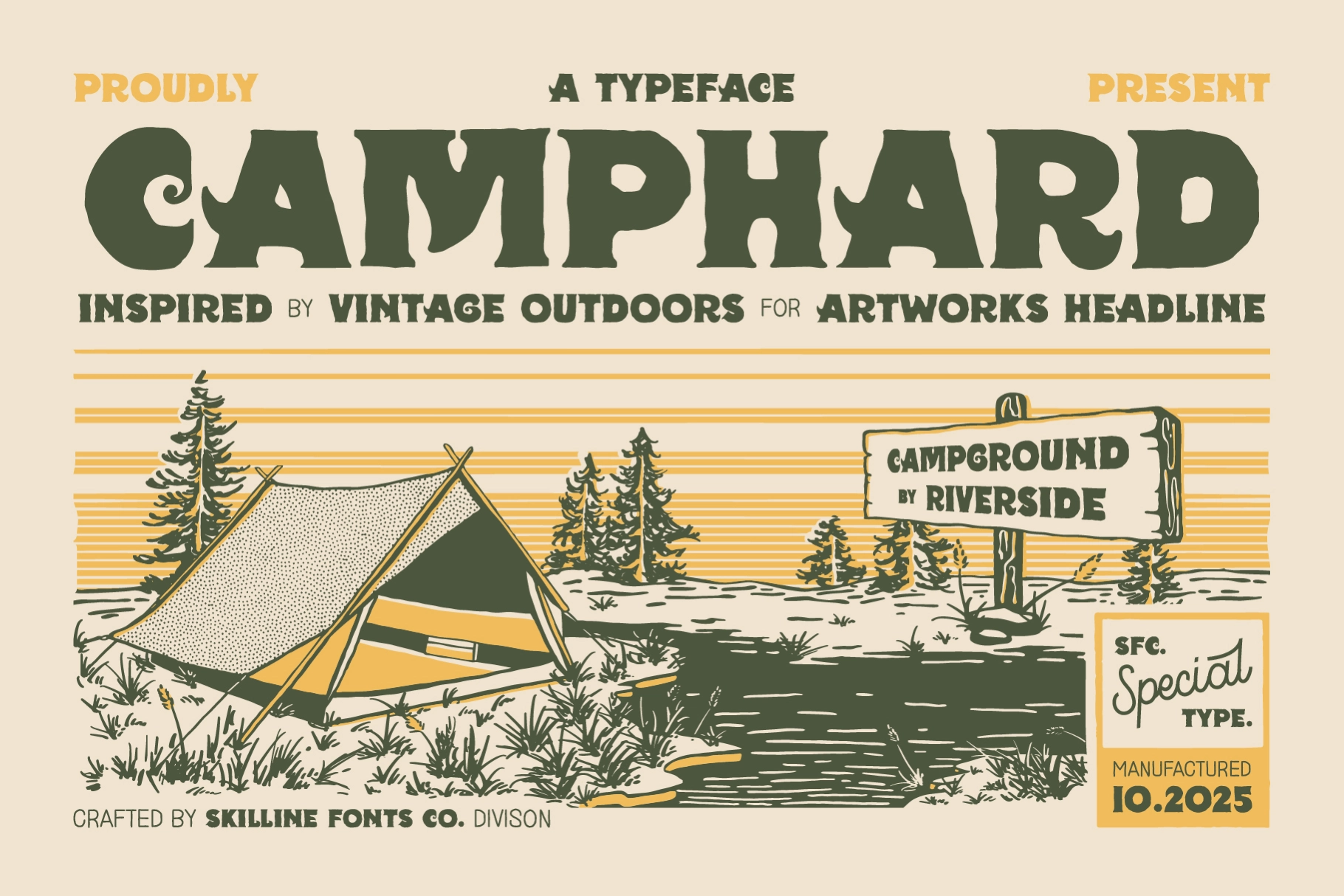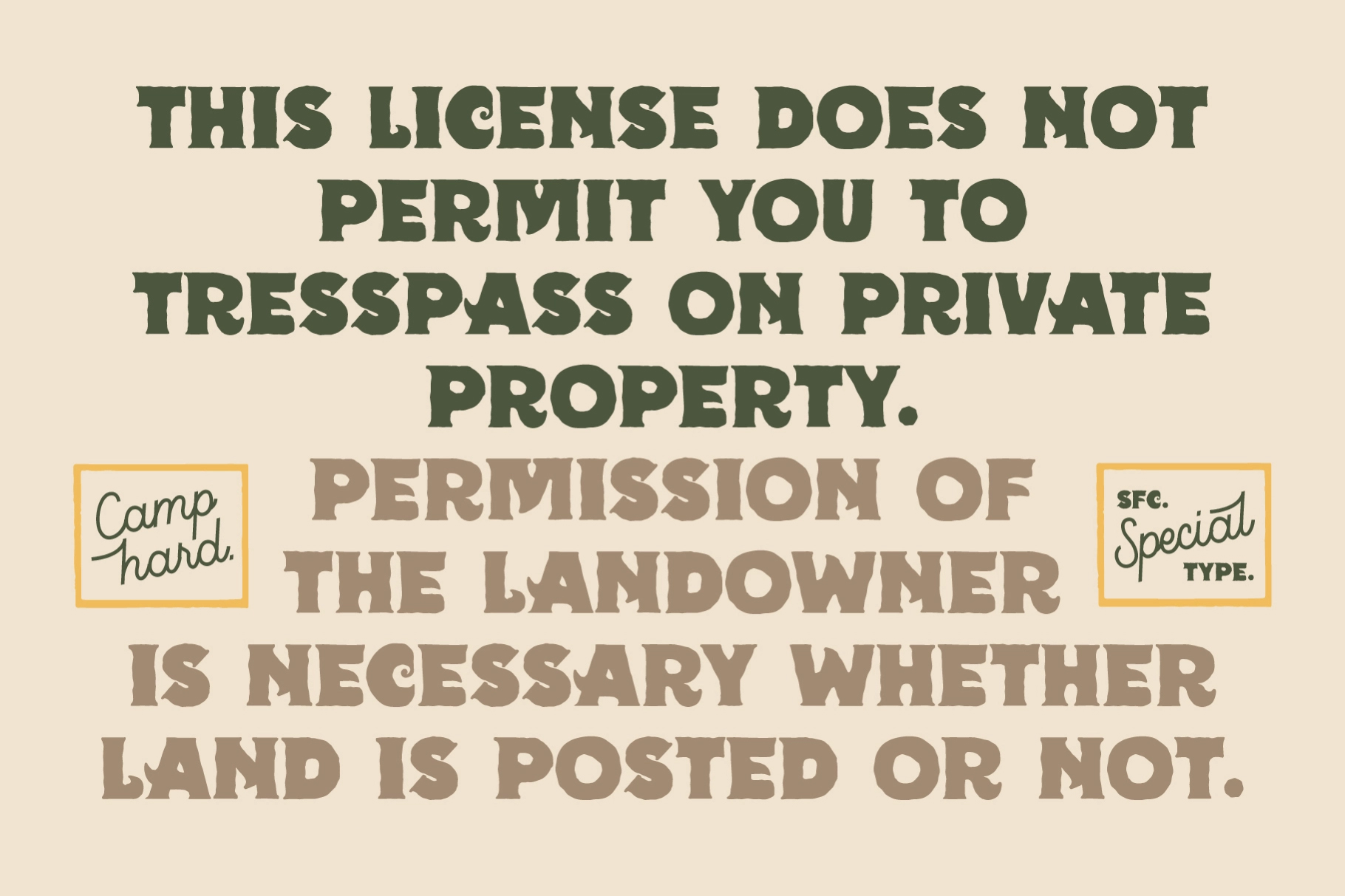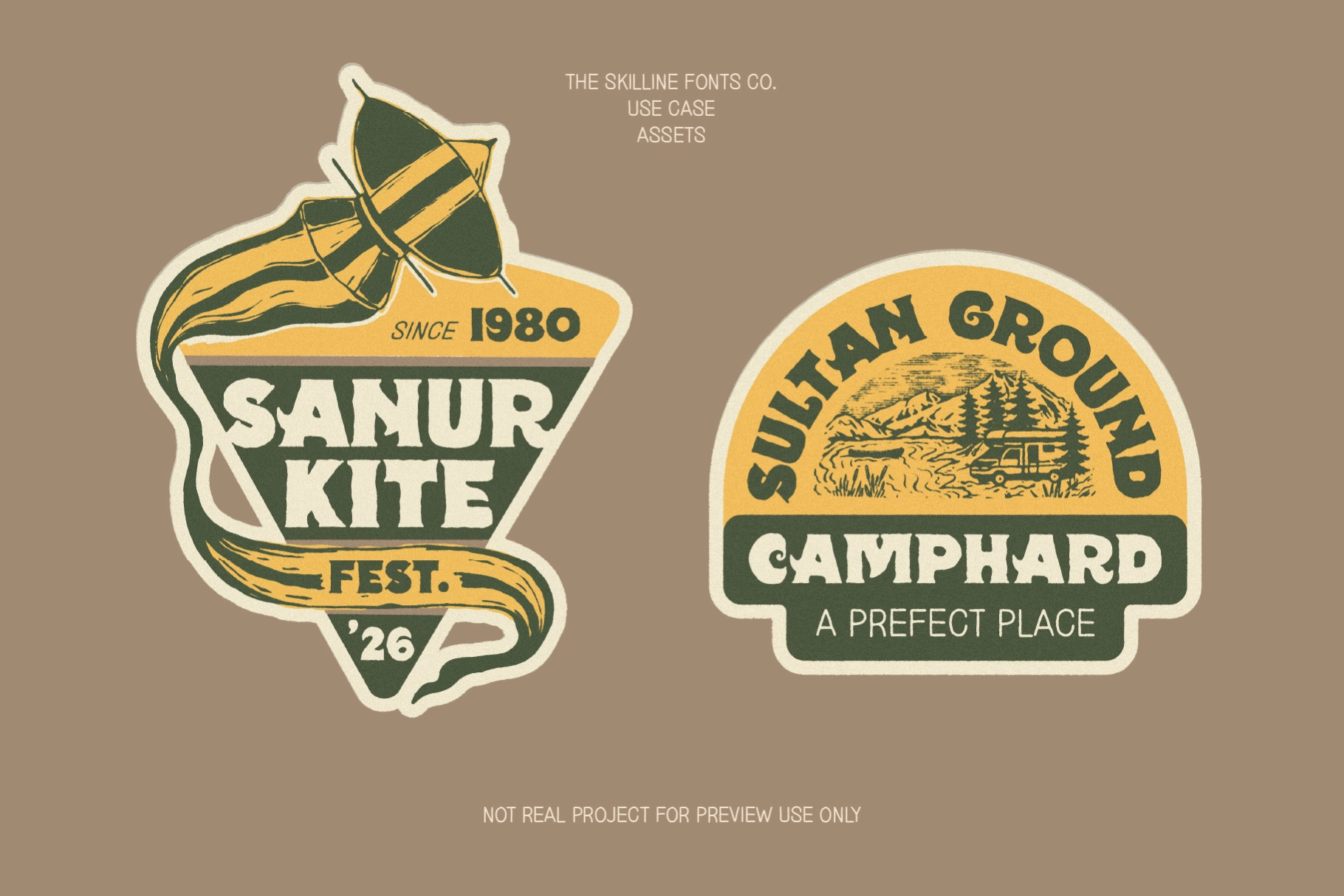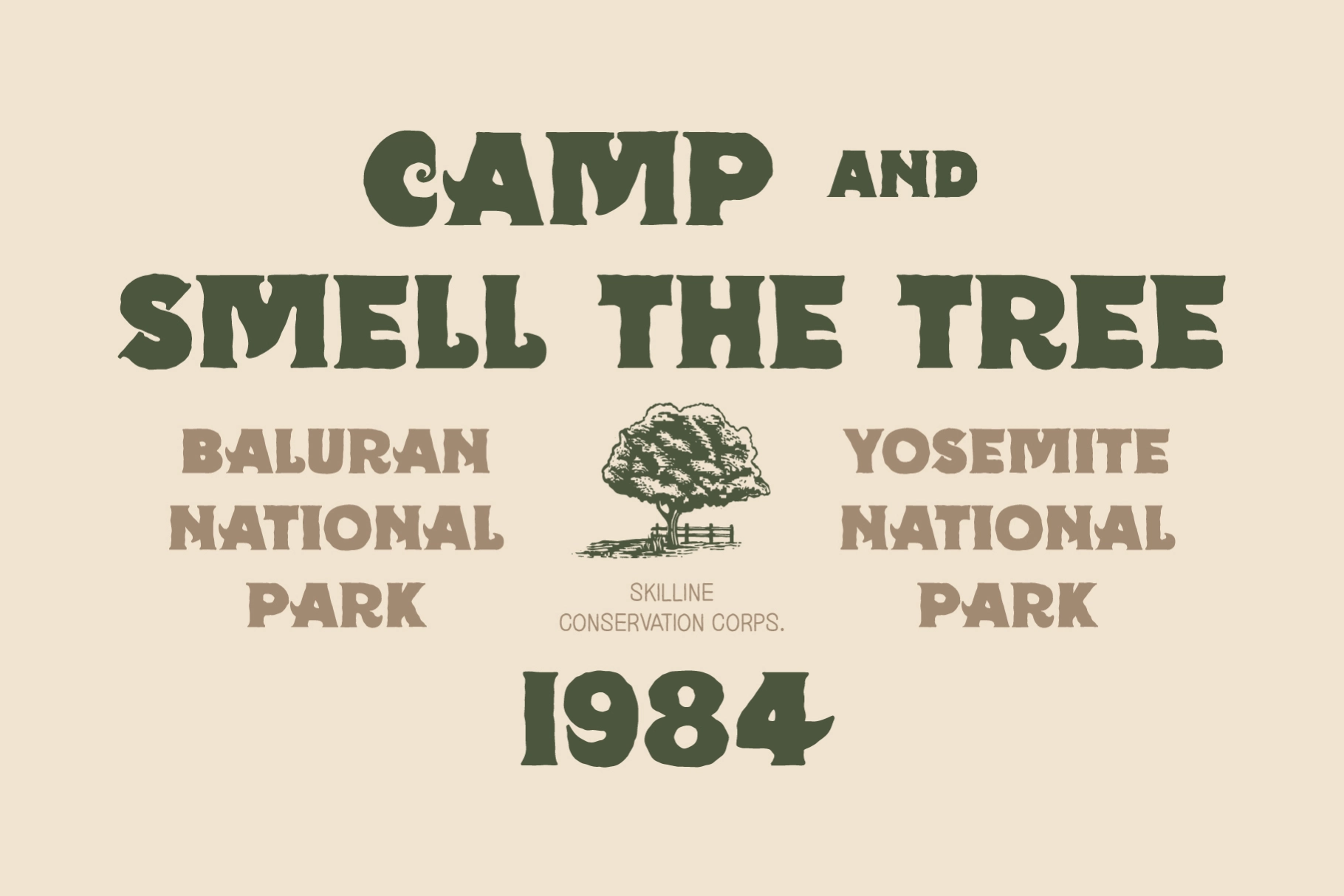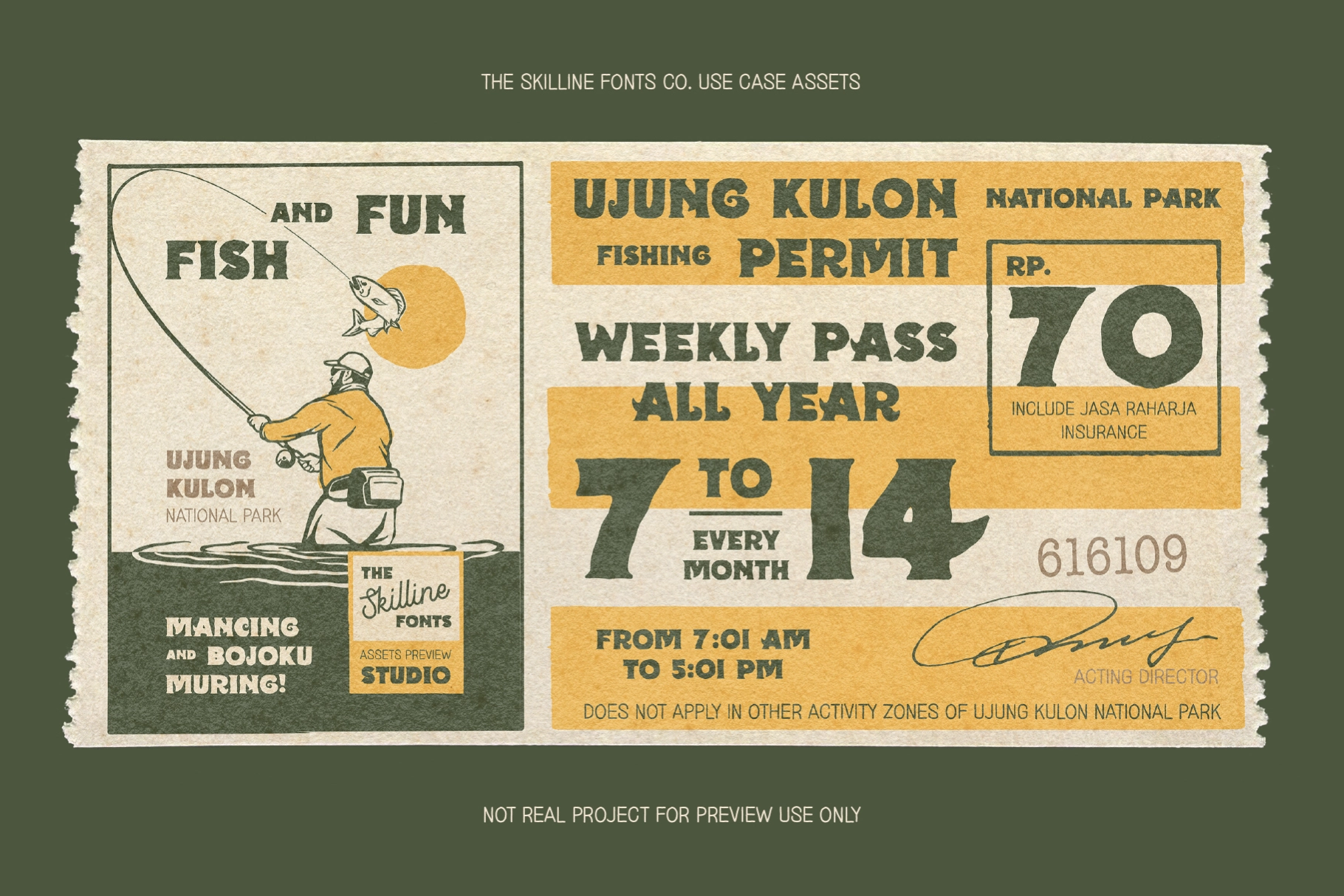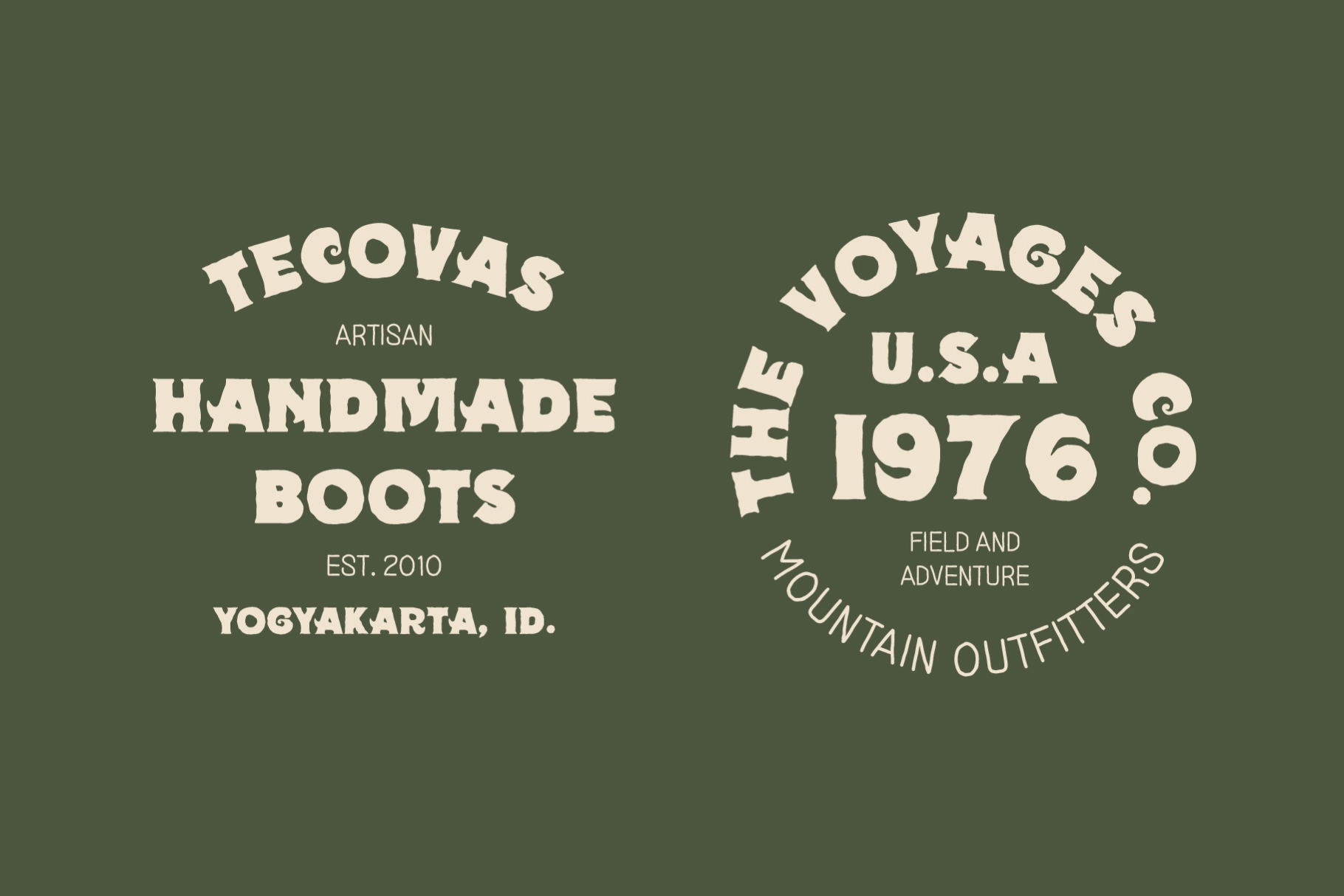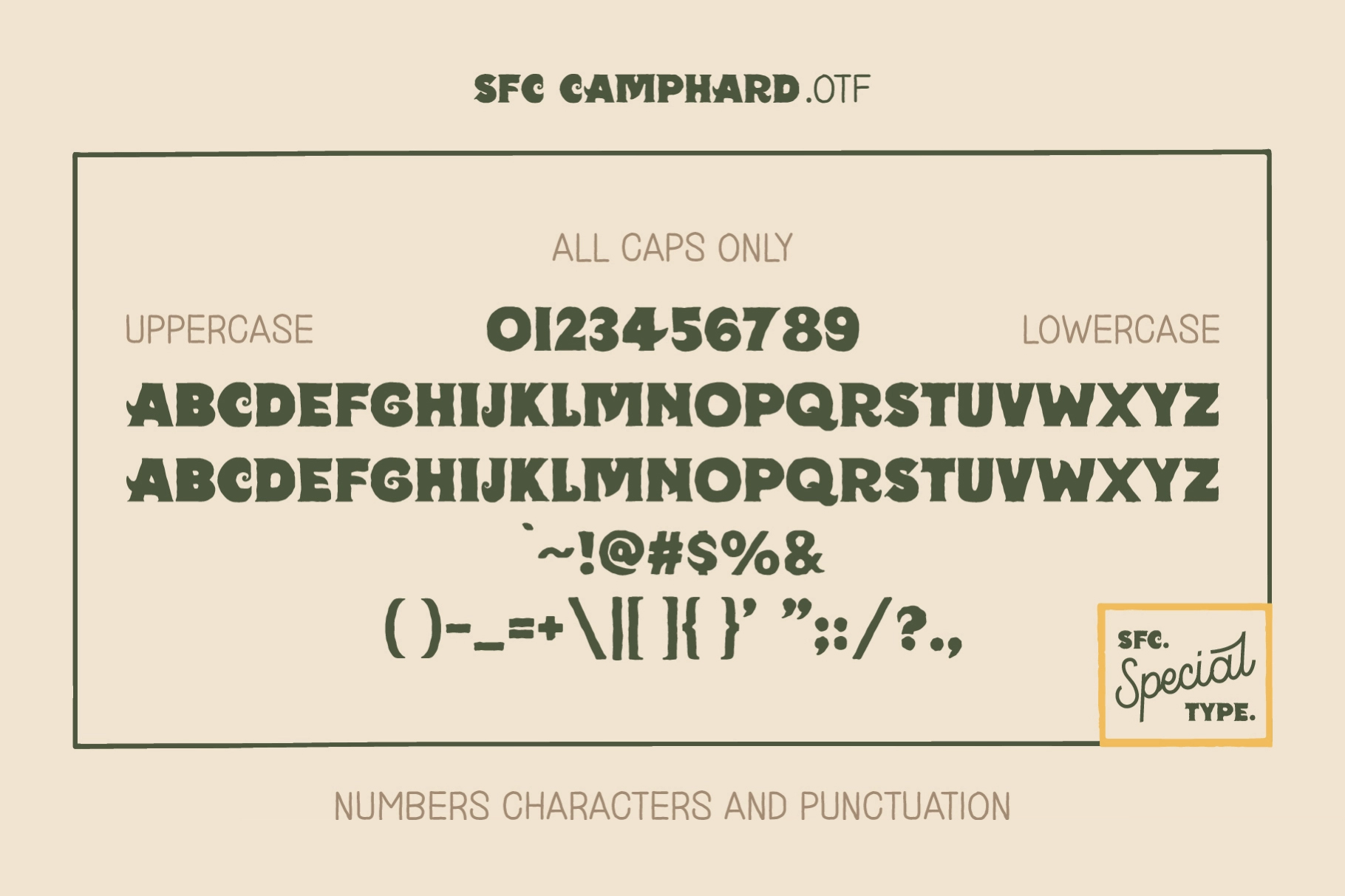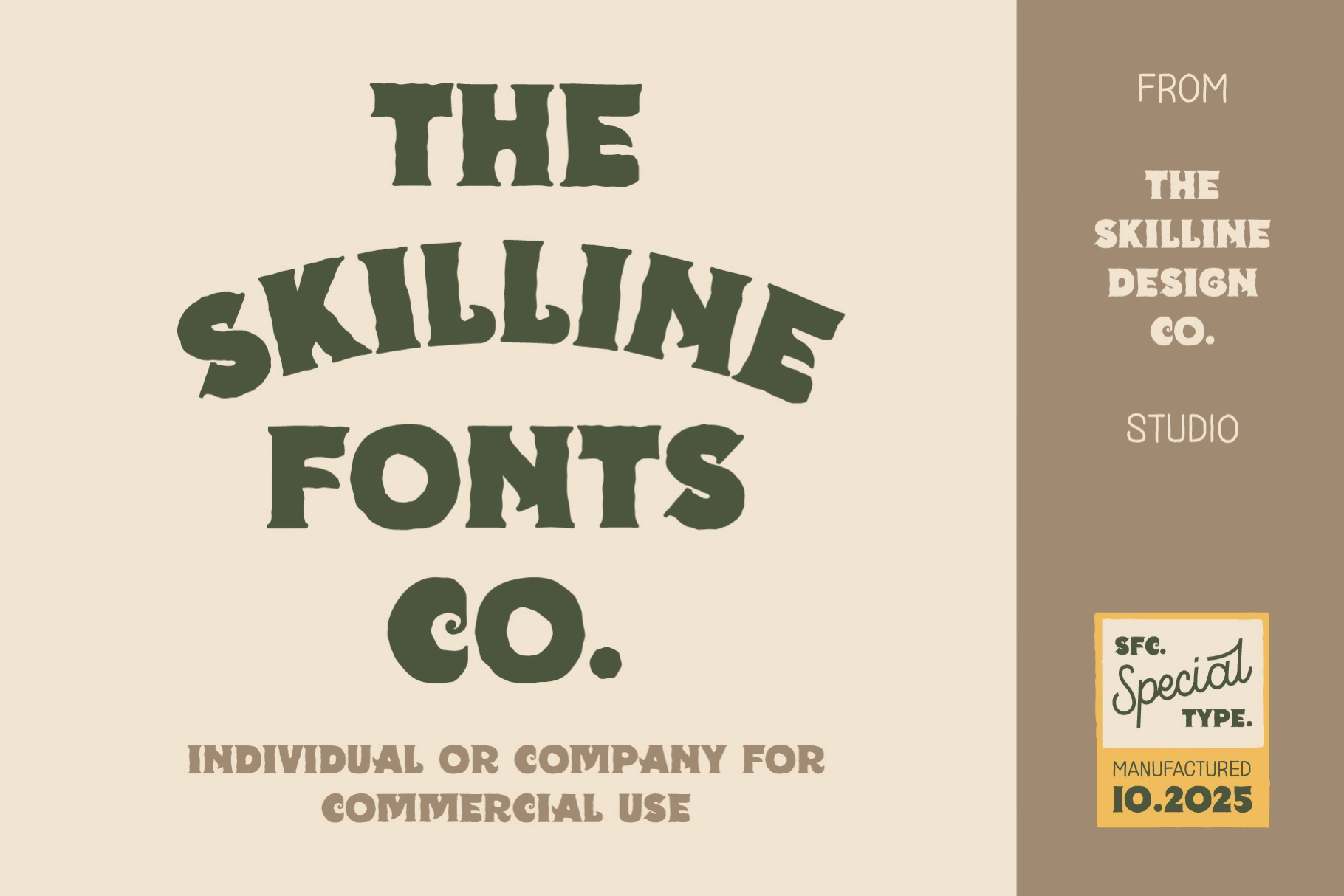
Camphard - Vintage Display Font
Camphard is a bold vintage display font inspired by classic camping gear, trail signage, and the spirit of outdoor adventure. With its hand-rendered edges and rugged letterforms, Camphard captures the warmth and nostalgia of mid-century design while staying fresh and highly legible for modern applications.
Crafted with personality and purpose, this typeface balances strength and friendliness, making it perfect for outdoor branding, adventure-themed projects, and heritage-style packaging. Each character feels intentionally imperfect, reflecting the authentic charm of nature and handcrafted lettering.
Camphard thrives in large-scale use, especially in headlines, posters, apparel, and logos that call for a bold, adventurous voice. Whether you’re designing for a camping brand, outdoor apparel, or creative studio with a love for the outdoors, Camphard brings a timeless, handcrafted spirit to every project.
Ideal Applications for Camphard
- Outdoor branding and vintage-inspired logos
- Apparel and merchandise design with adventure appeal
- Packaging for coffee, gear, or handcrafted goods
- Posters, signage, and editorial headlines
- Retro-Vintage style digital graphics and social media visuals